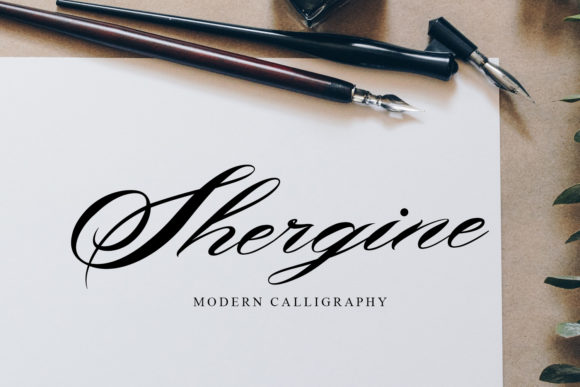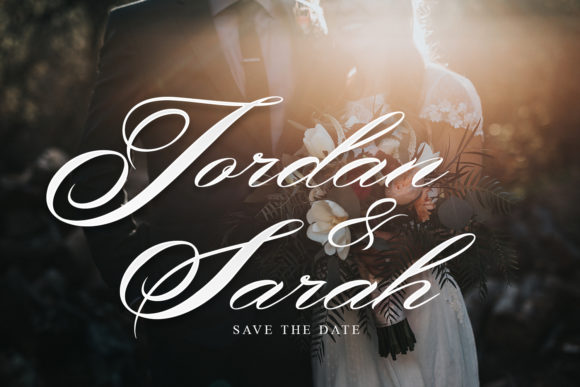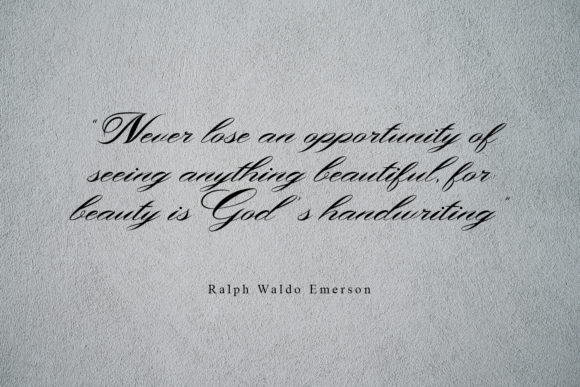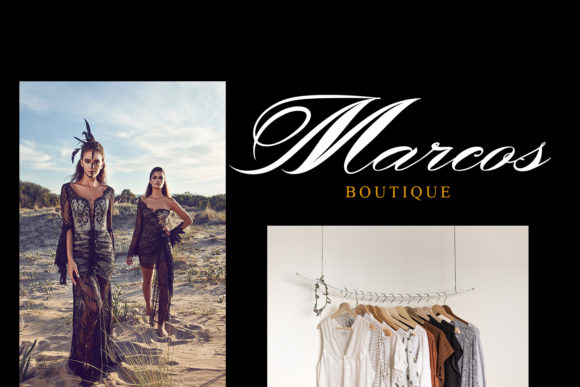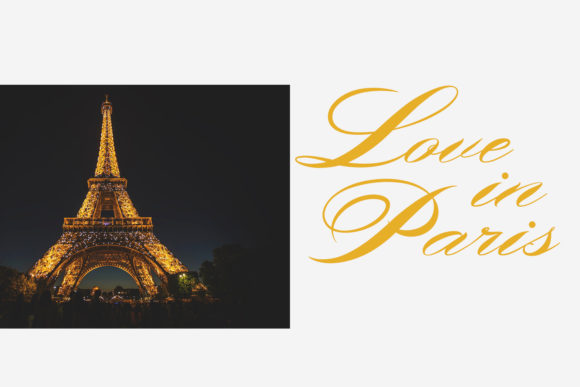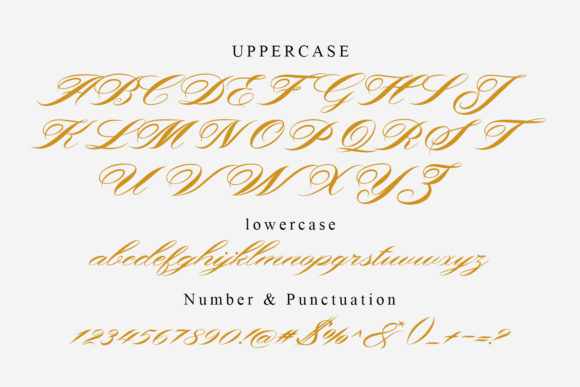
Shergine Font
About Shergine Font
Shergine is an elegant and modern script font with unique style. It will add a romantic touch to any crafting project!